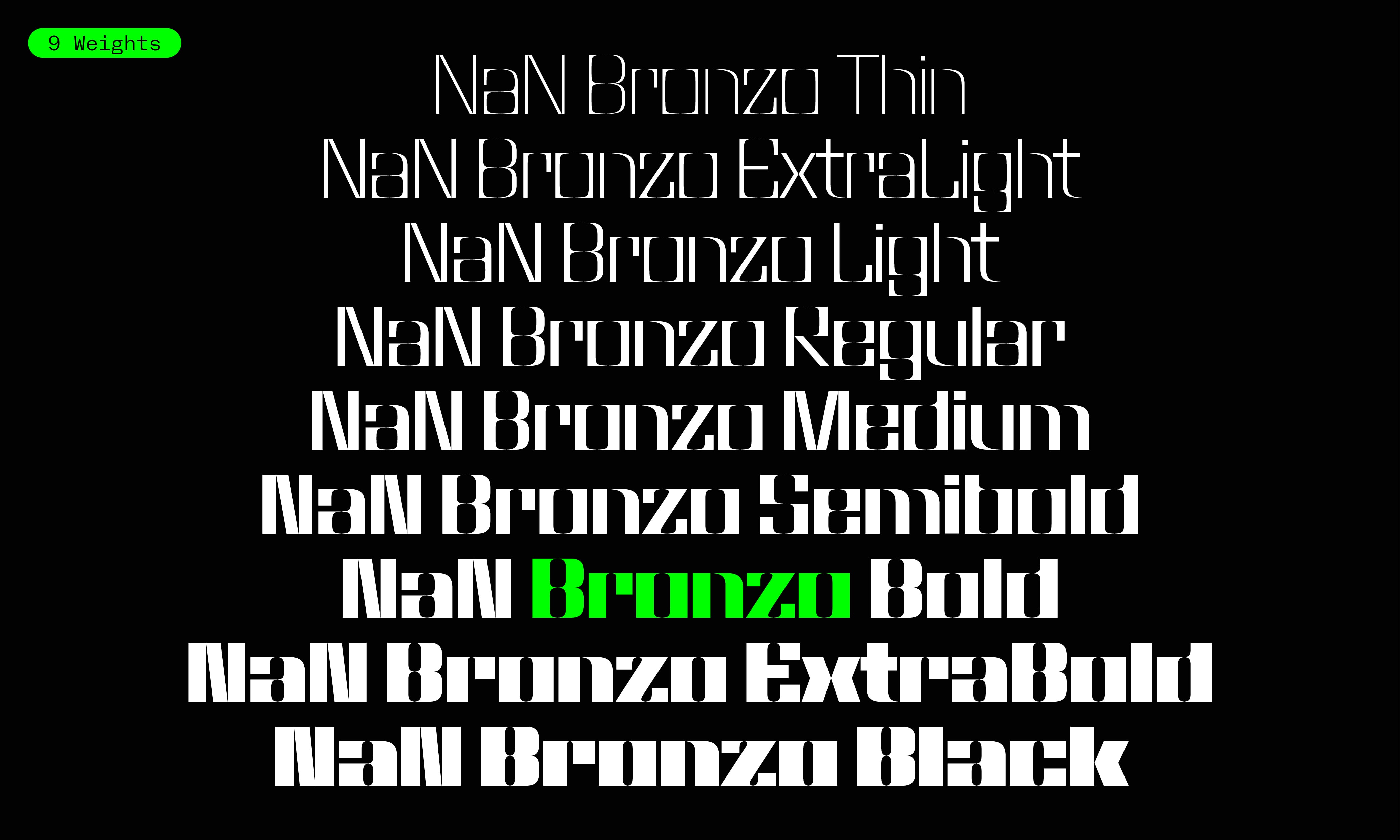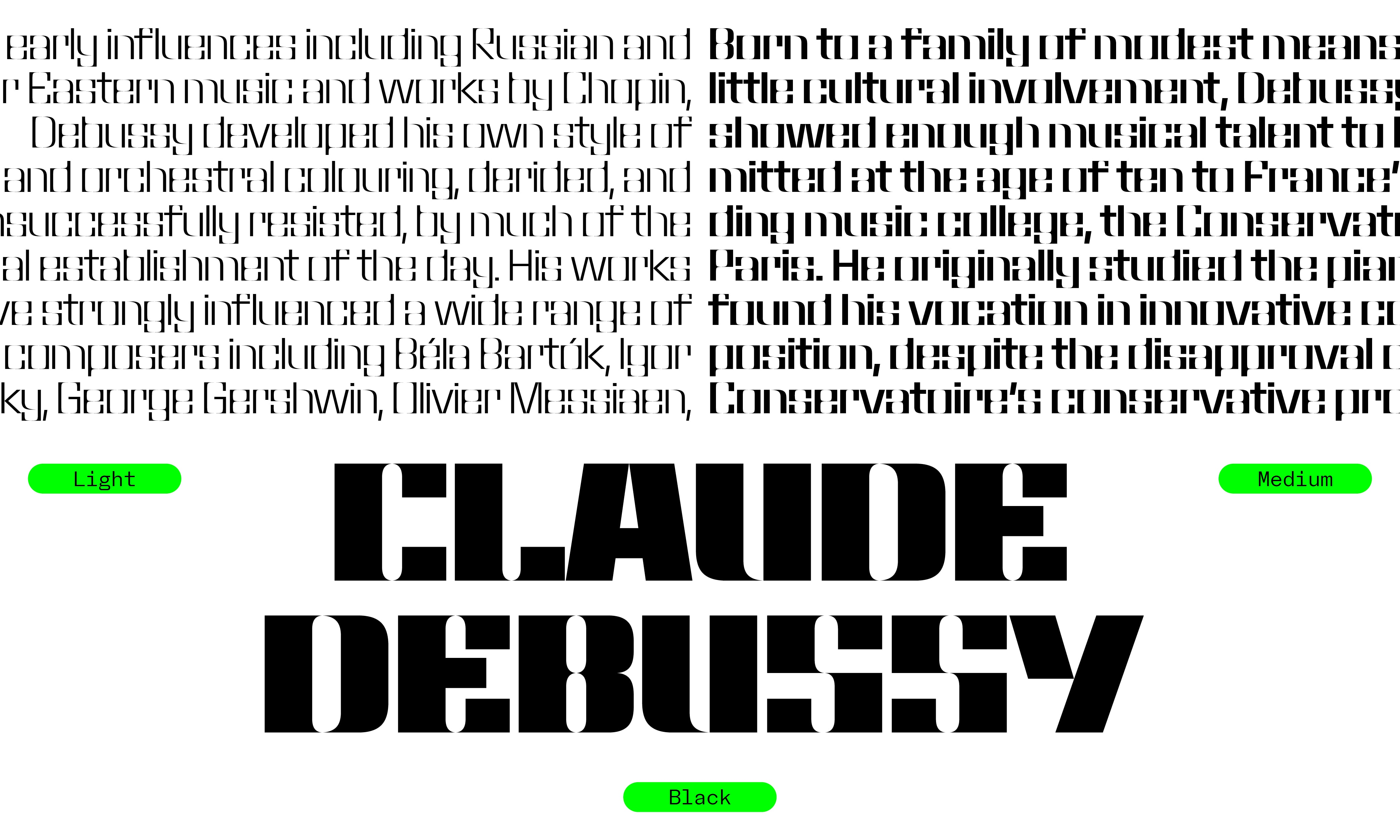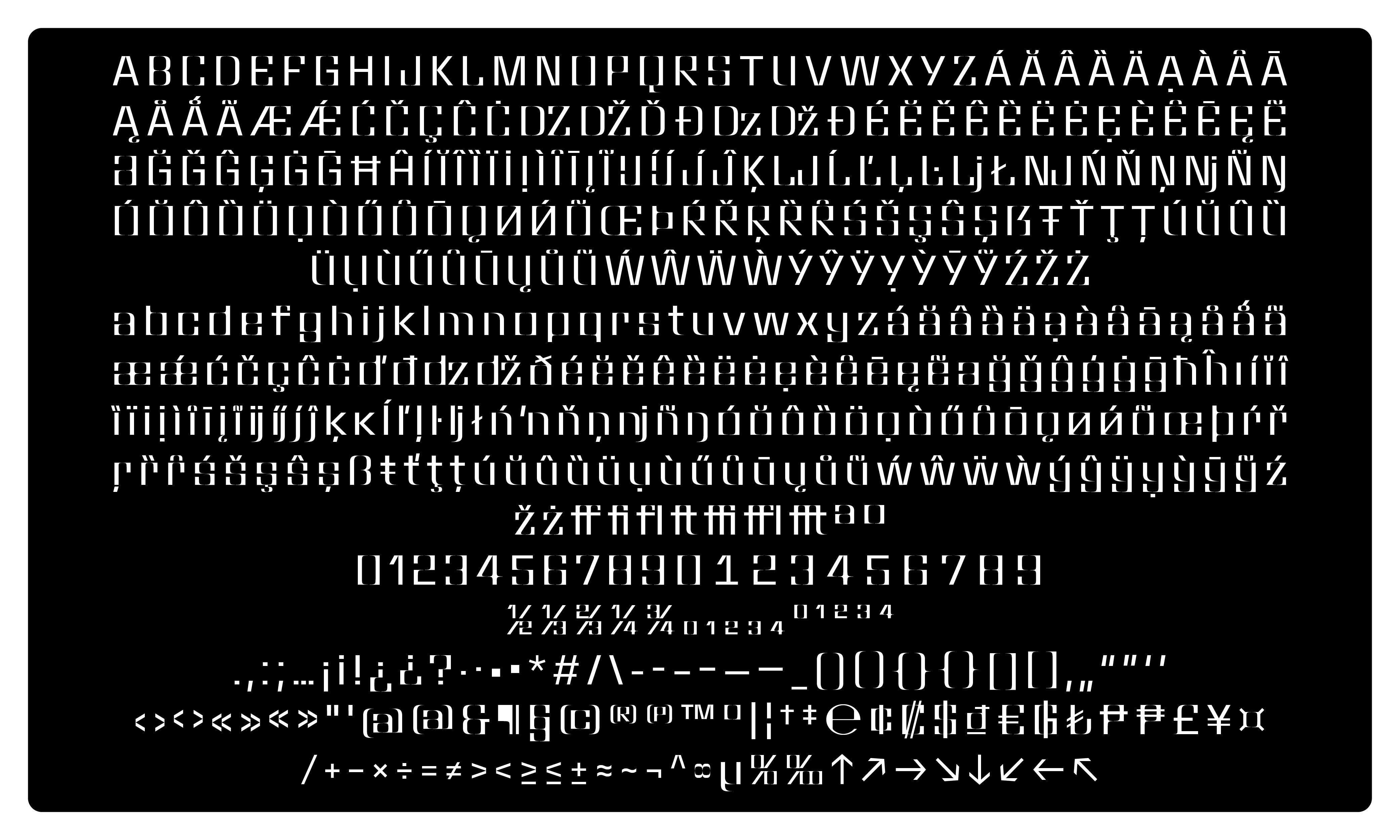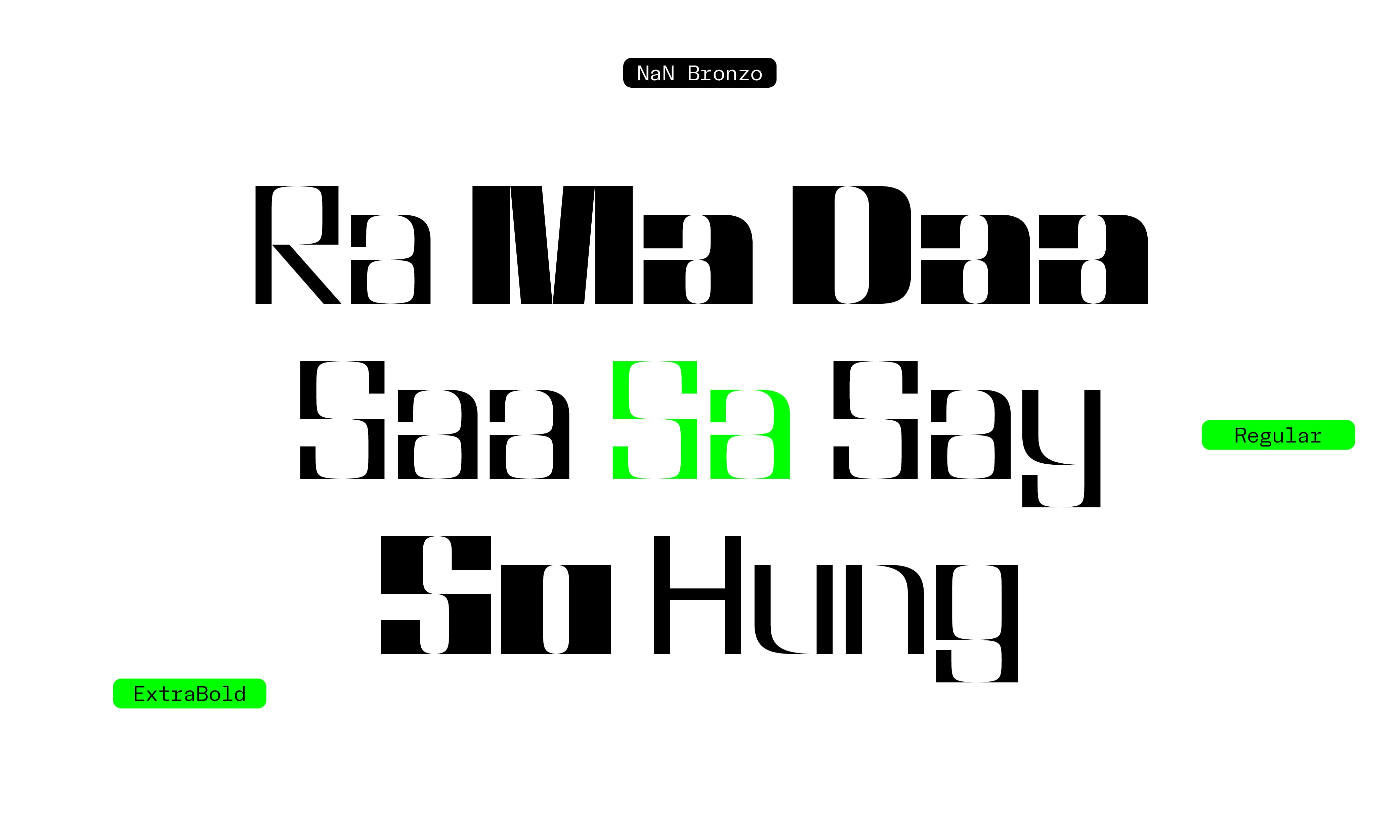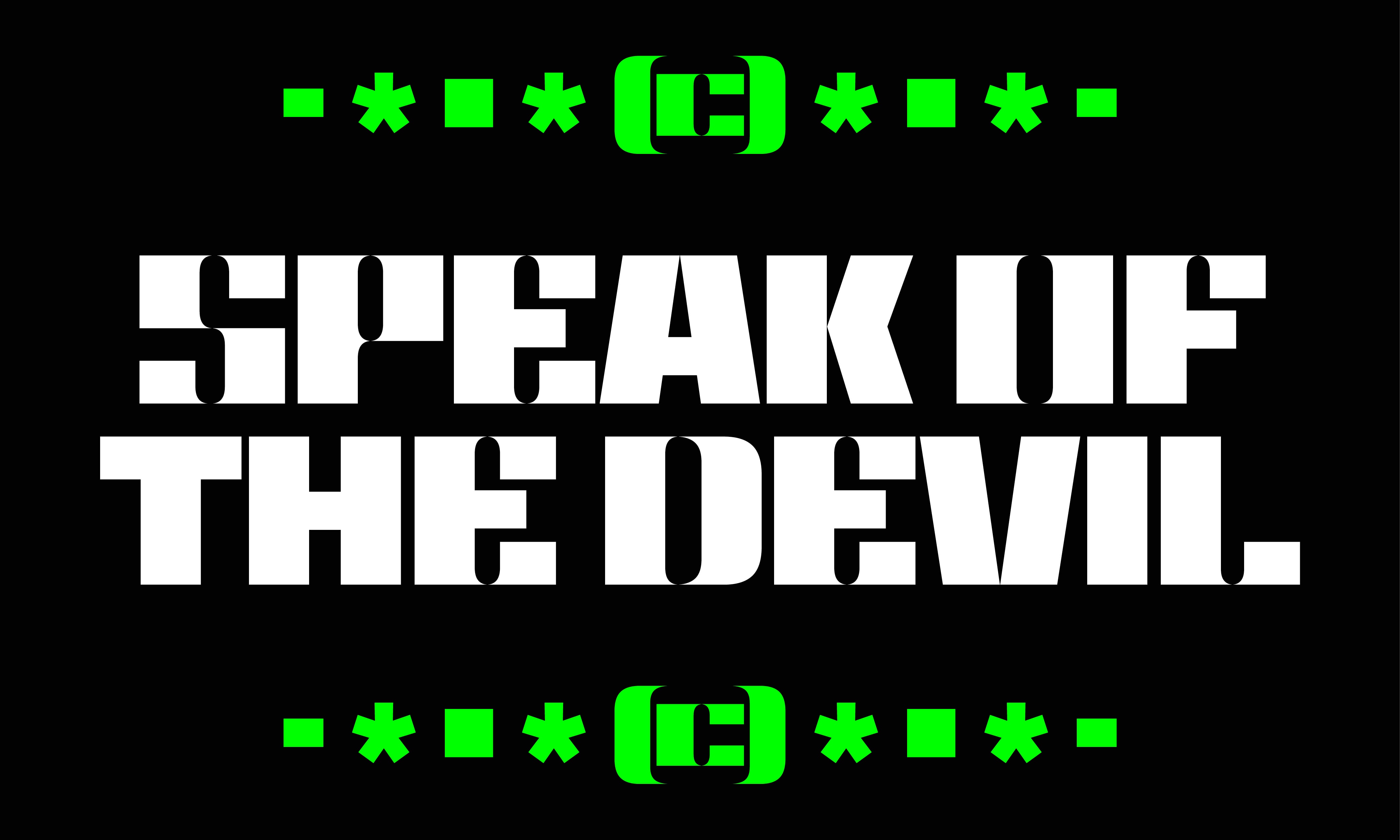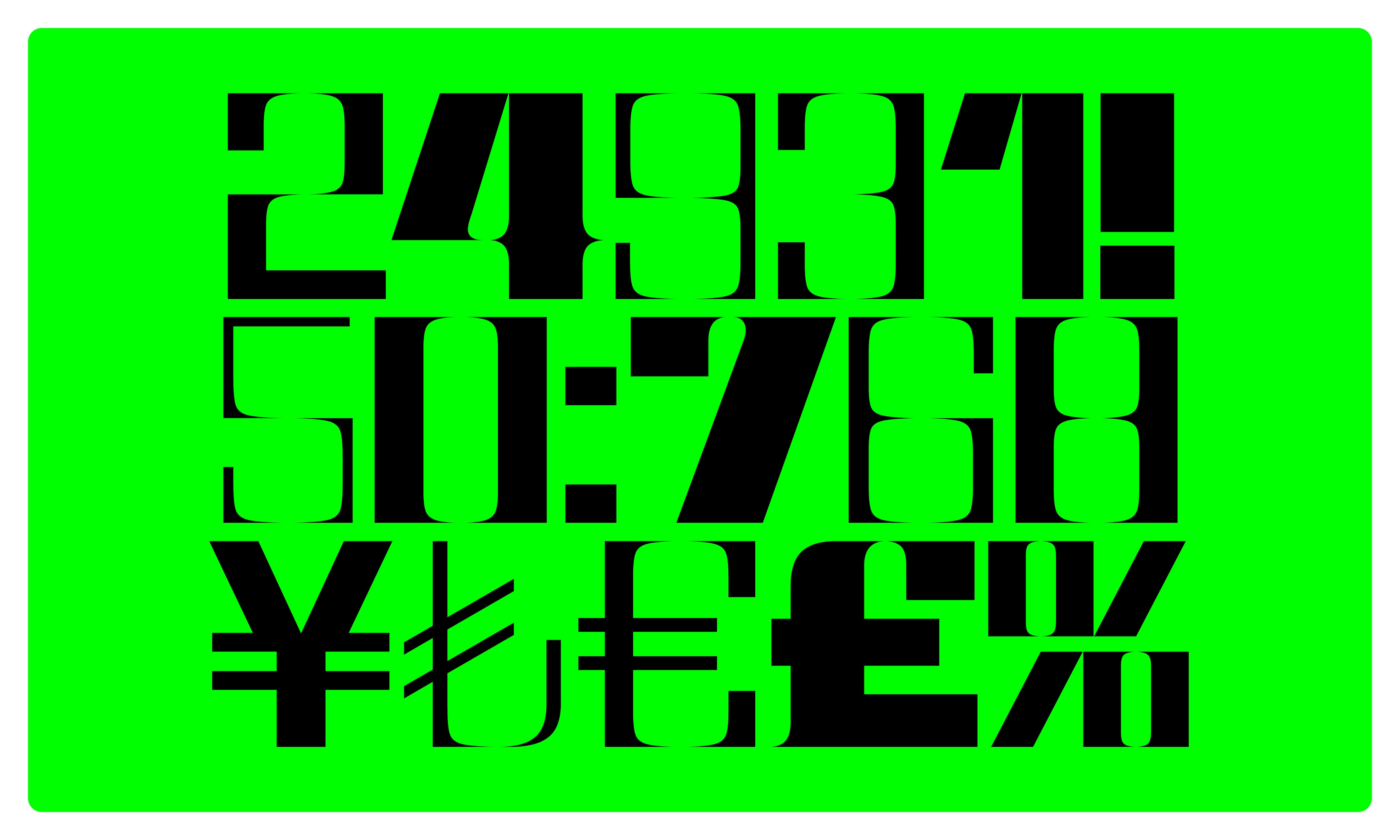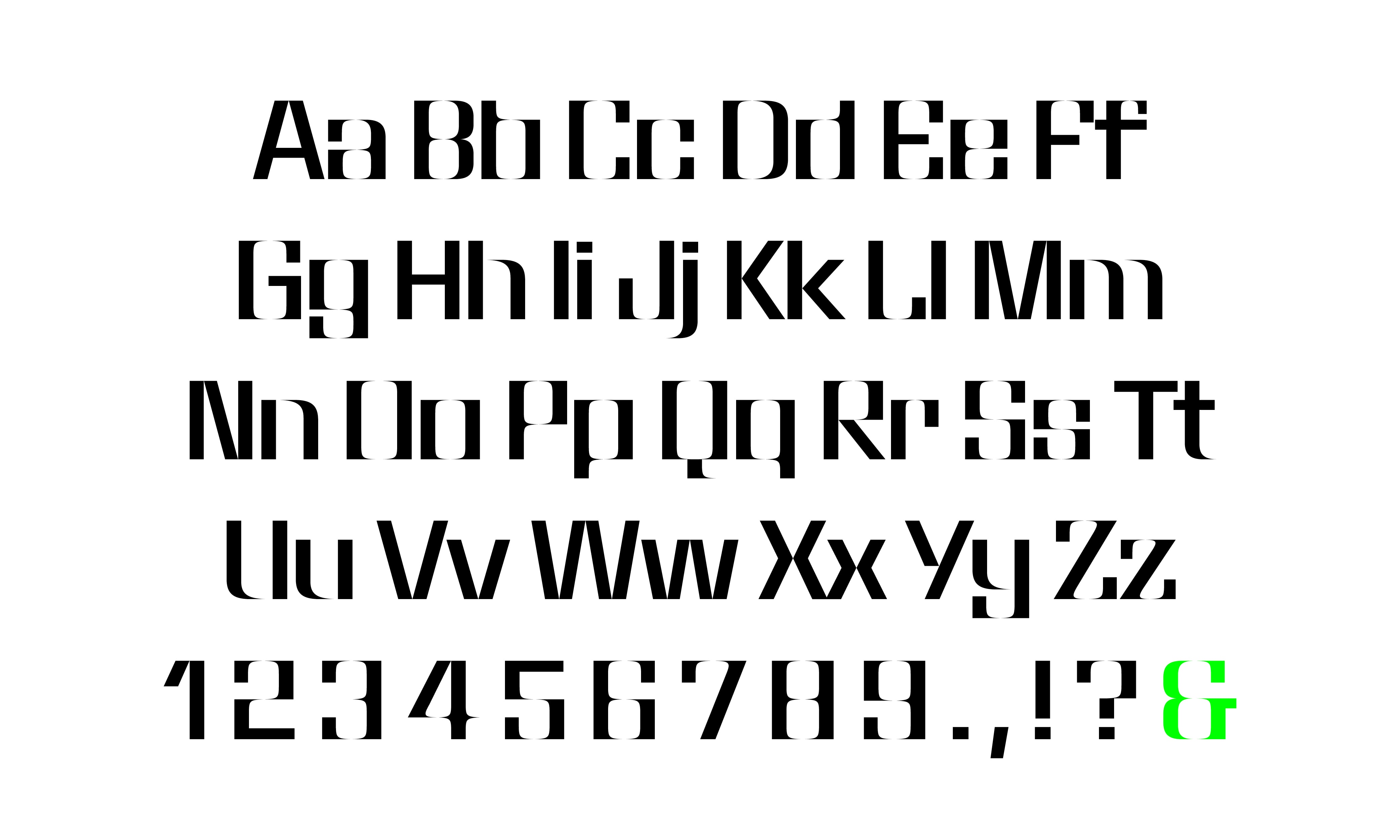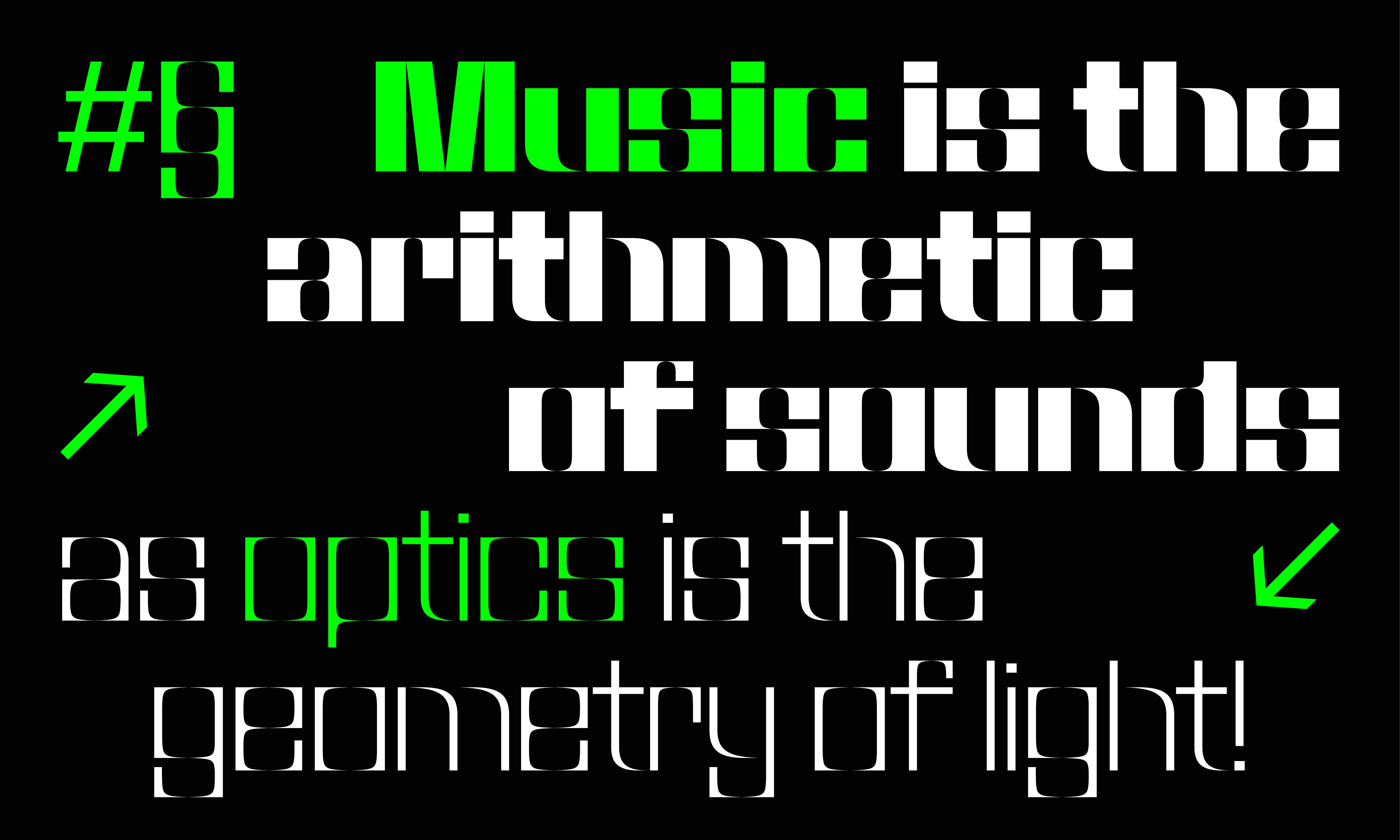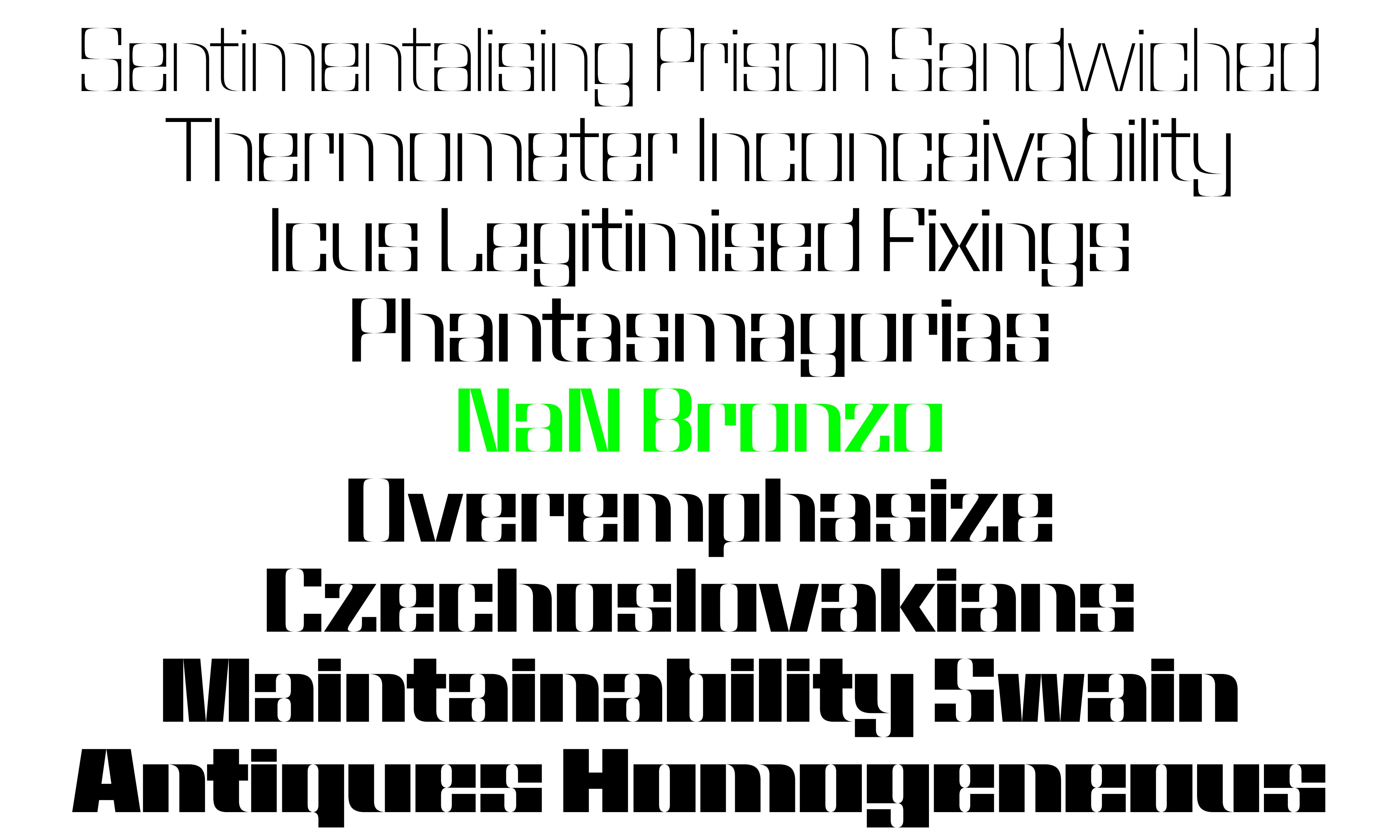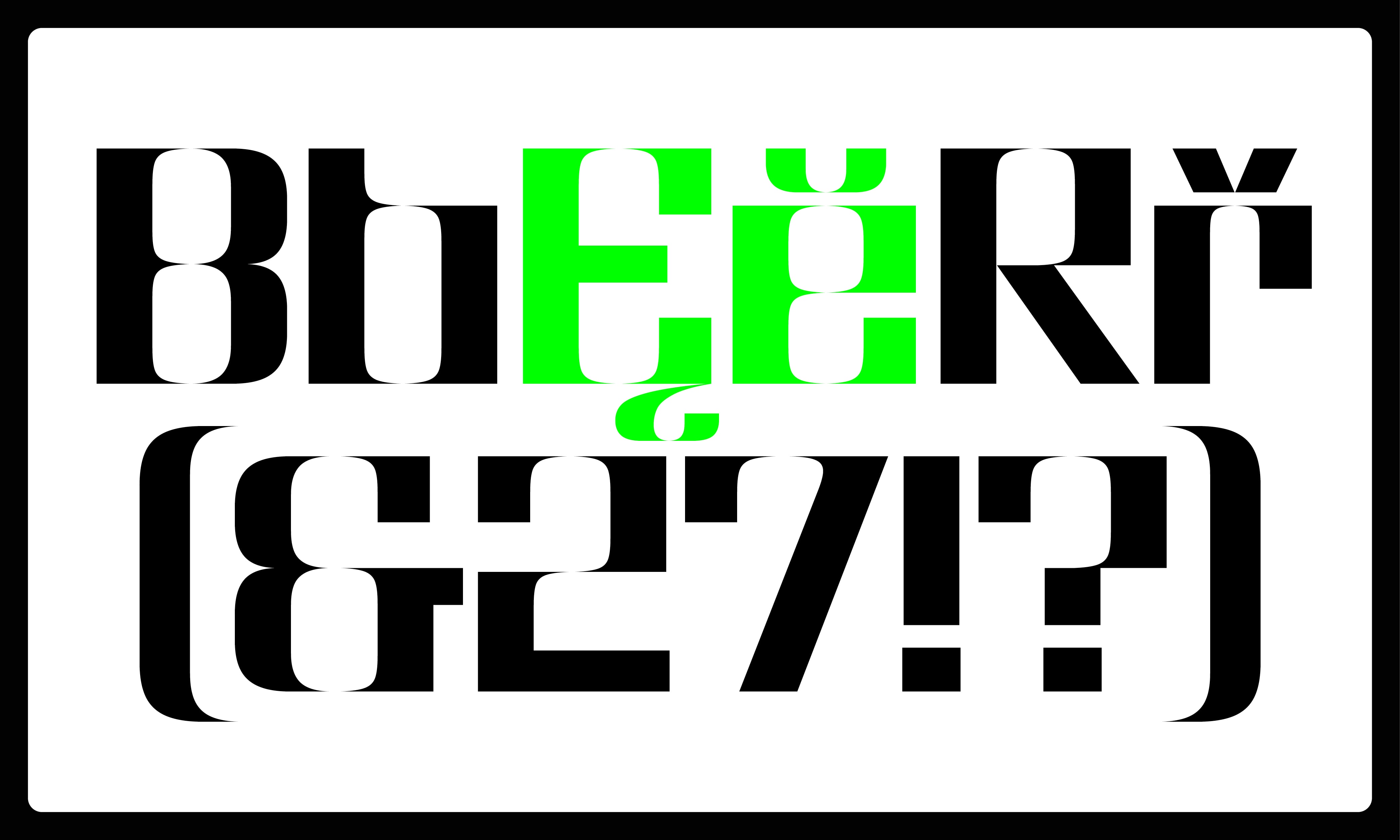
About NaN Bronzo
NaN Bronzo, a brutalist stencil typeface withsharp corners and a distinctive curves-inside / angles-outside paradygm.
Typeface: NaN Bronzo
Designed by NaN
NaN Team: Hugues Gentile, Fanny Hamelin, Fadhl Haqq, Léon Hugues, Jean-Baptiste Morizot, Luke Prowse
Additional Engineering: Igino Marini
Year: 2025-2026
Selected Opentype Features
Flufftime Straight -f-t-
1/2 or 3/4 Fractions